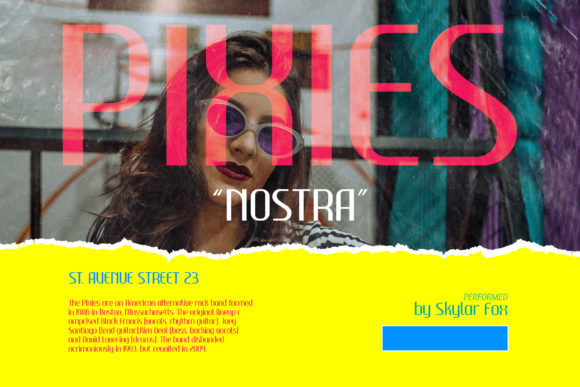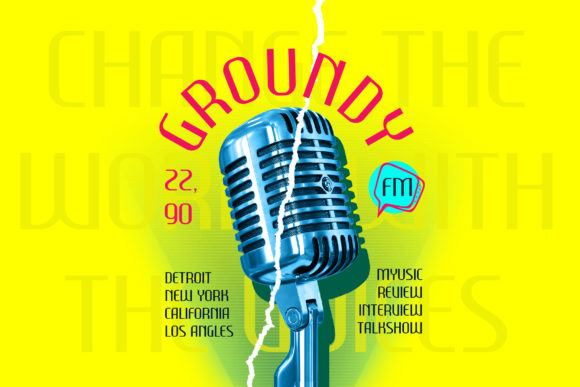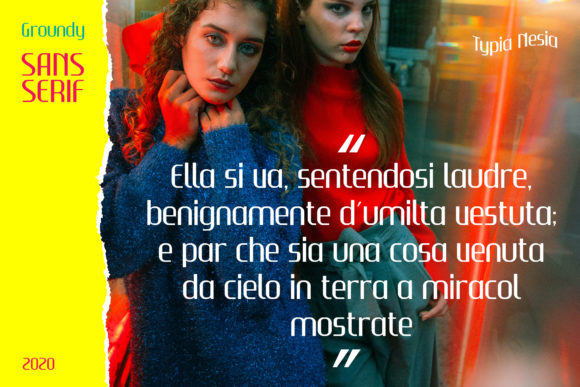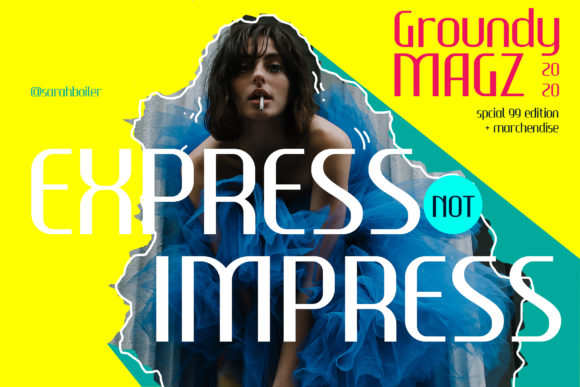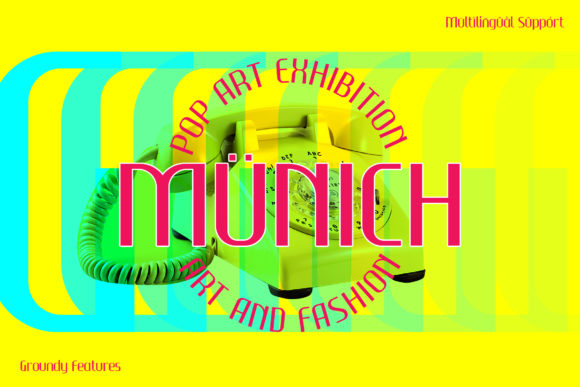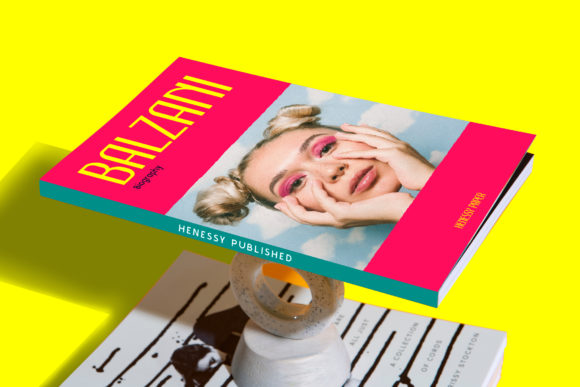
Introducing Groundy Font: The Ultimate Sans Serif for Creative Projects
Are you tired of using the same old fonts for your design projects? Look no further than Groundy Font, a minimal and neat sans serif font that’s perfect for adding a touch of modernity to your creative ideas. With its clean lines and simple aesthetic, Groundy Font is incredibly versatile and can easily be matched to a wide range of projects.
What is Groundy Font?
Groundy Font is a sans serif font that’s designed to be both elegant and understated. Its minimalist approach makes it perfect for designers and crafters who want to add a touch of sophistication to their work without overpowering the content. The font features clean lines, simple shapes, and a consistent style that’s easy on the eyes.
Key Features of Groundy Font
- Minimalist design: Groundy Font features a clean and simple design that’s perfect for modern designs.
- Neat and elegant: The font’s neat and elegant style makes it perfect for adding a touch of sophistication to your work.
- Highly versatile: Groundy Font can easily be matched to a wide range of projects, from branding and advertising to packaging and digital design.
- Easy to read: The font’s simple and consistent style makes it easy to read, even at small sizes.
Why Use Groundy Font?
So why should you use Groundy Font for your next project? Here are just a few reasons:
- Add a touch of modernity: Groundy Font’s minimalist design and clean lines make it perfect for adding a touch of modernity to your work.
- Stand out from the crowd: With its unique and elegant style, Groundy Font can help your work stand out from the crowd and grab attention.
- Perfect for digital design: Groundy Font is optimized for digital use, making it perfect for websites, social media graphics, and other digital projects.
- Easy to pair with other fonts: Groundy Font’s simple style makes it easy to pair with other fonts, allowing you to create unique and interesting typography combinations.
Examples of Groundy Font in Action
Groundy Font can be used in a wide range of projects, from branding and advertising to packaging and digital design. Here are a few examples of how Groundy Font can be used in action:
- Branding and advertising: Use Groundy Font to create modern and elegant branding and advertising materials, such as logos, business cards, and billboards.
- Packaging design: Groundy Font is perfect for packaging design, adding a touch of sophistication and elegance to product labels and packaging.
- Digital design: Use Groundy Font to create modern and engaging digital designs, such as website headers, social media graphics, and email newsletters.
Tips for Using Groundy Font
Here are a few tips for getting the most out of Groundy Font:
- Use it sparingly: Groundy Font’s minimalist design makes it perfect for use sparingly, such as in headings and titles.
- Pair it with other fonts: Groundy Font’s simple style makes it easy to pair with other fonts, allowing you to create unique and interesting typography combinations.
- Experiment with different sizes: Groundy Font’s clean lines and simple style make it easy to read at a wide range of sizes, so don’t be afraid to experiment with different sizes to find the one that works best for your project.
Groundy Font is a versatile and elegant sans serif font that’s perfect for adding a touch of modernity to your creative projects. With its clean lines, simple aesthetic, and highly versatile design, Groundy Font is sure to become a go-to font in your design arsenal. So why not give it a try and see how it can help take your designs to the next level?